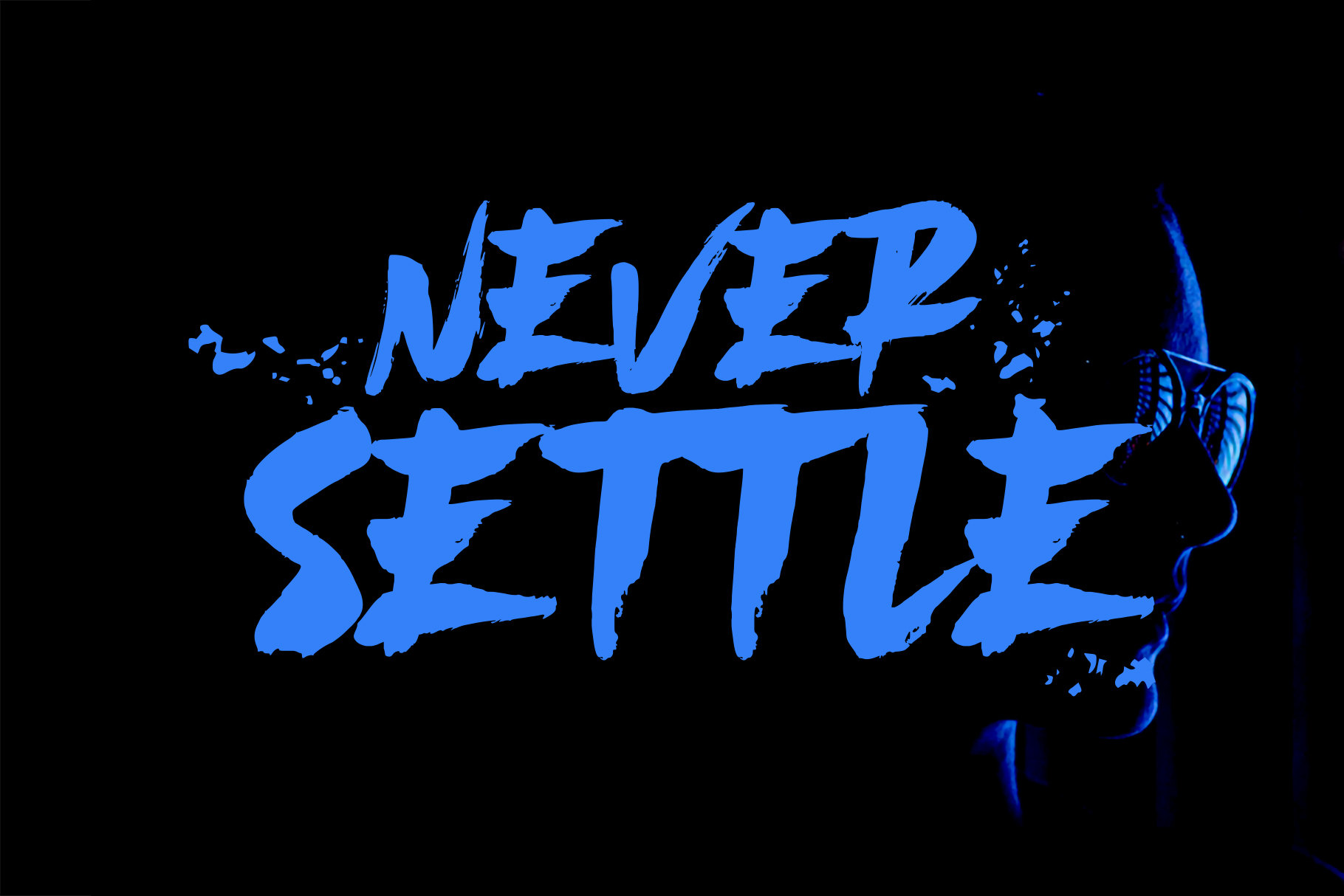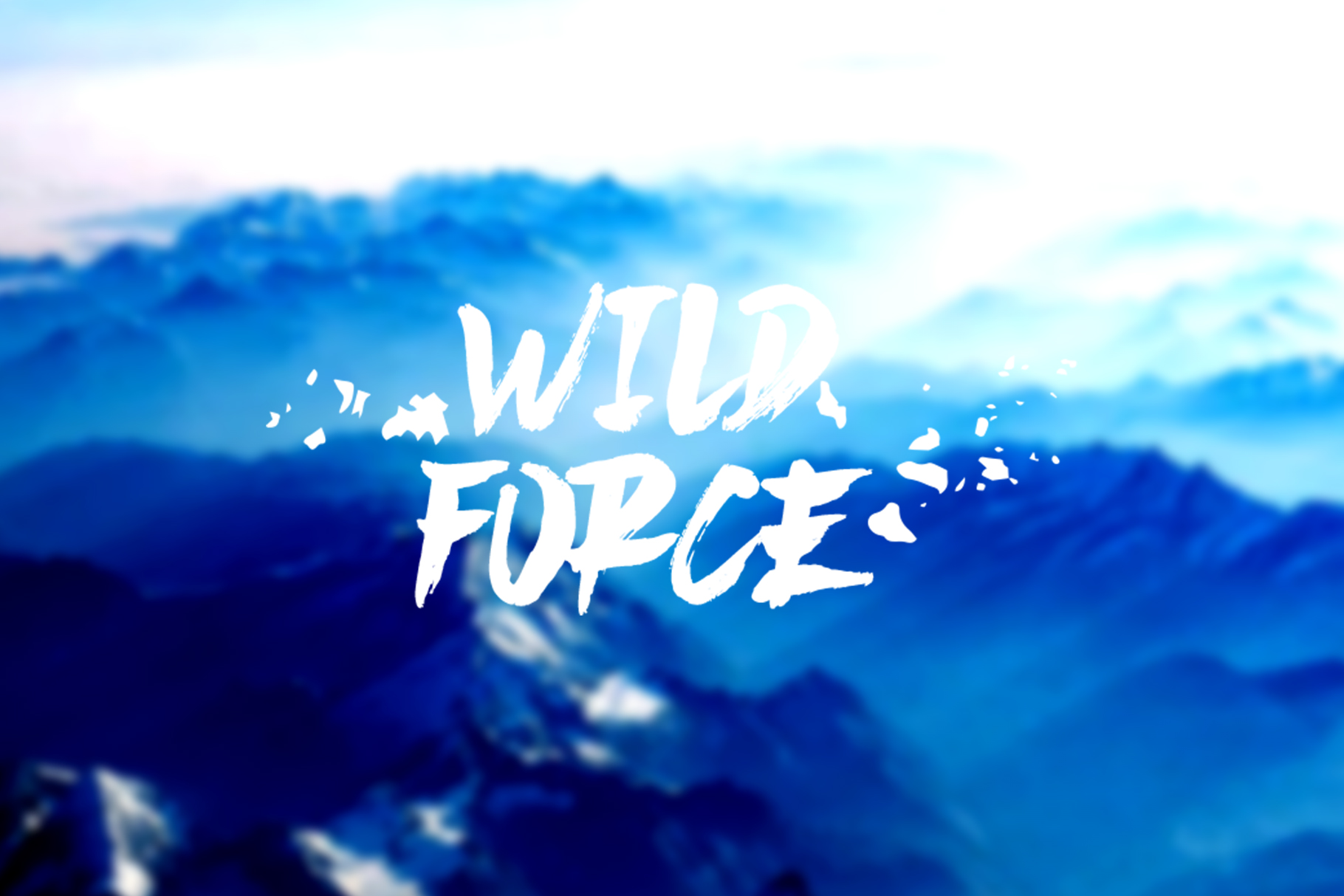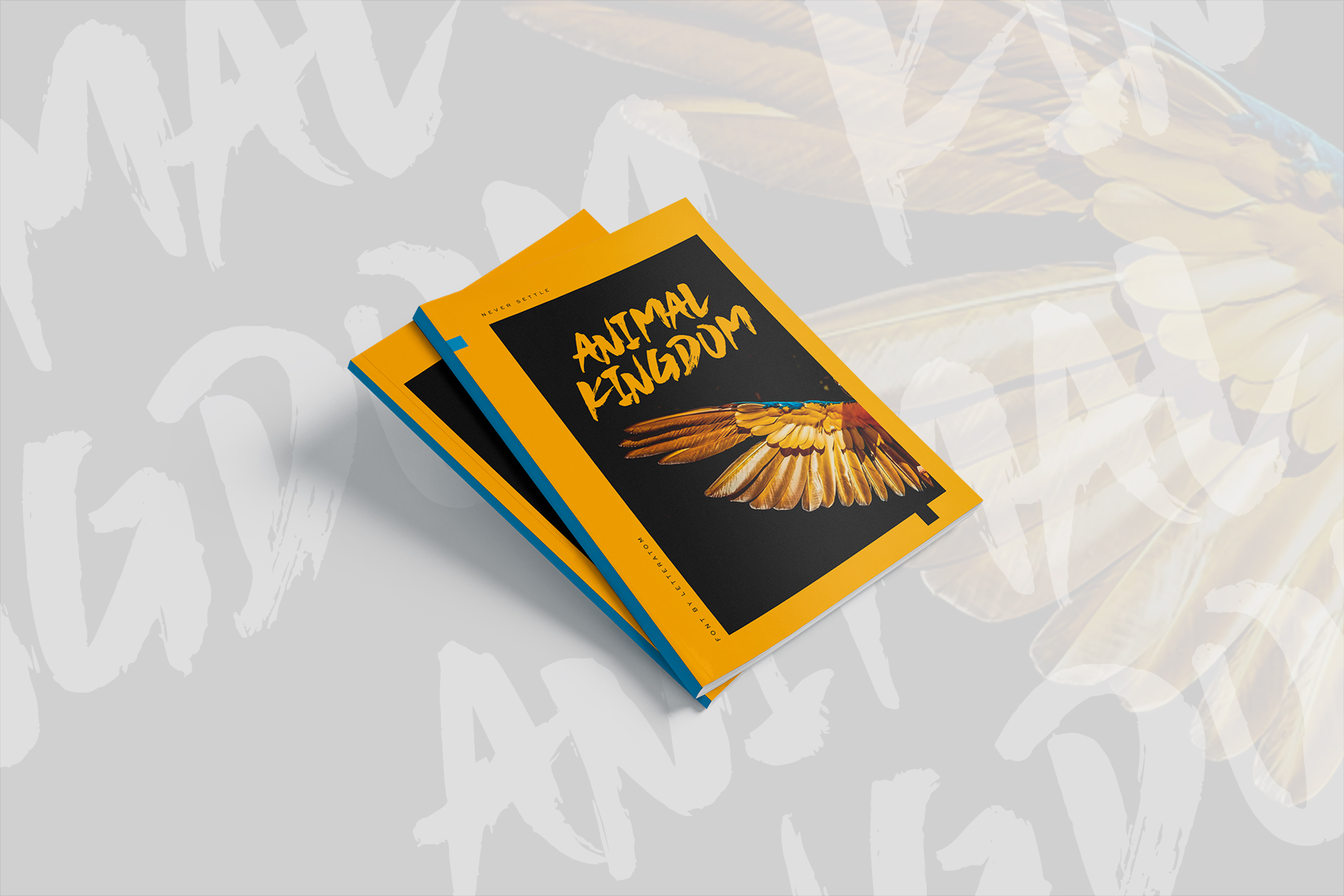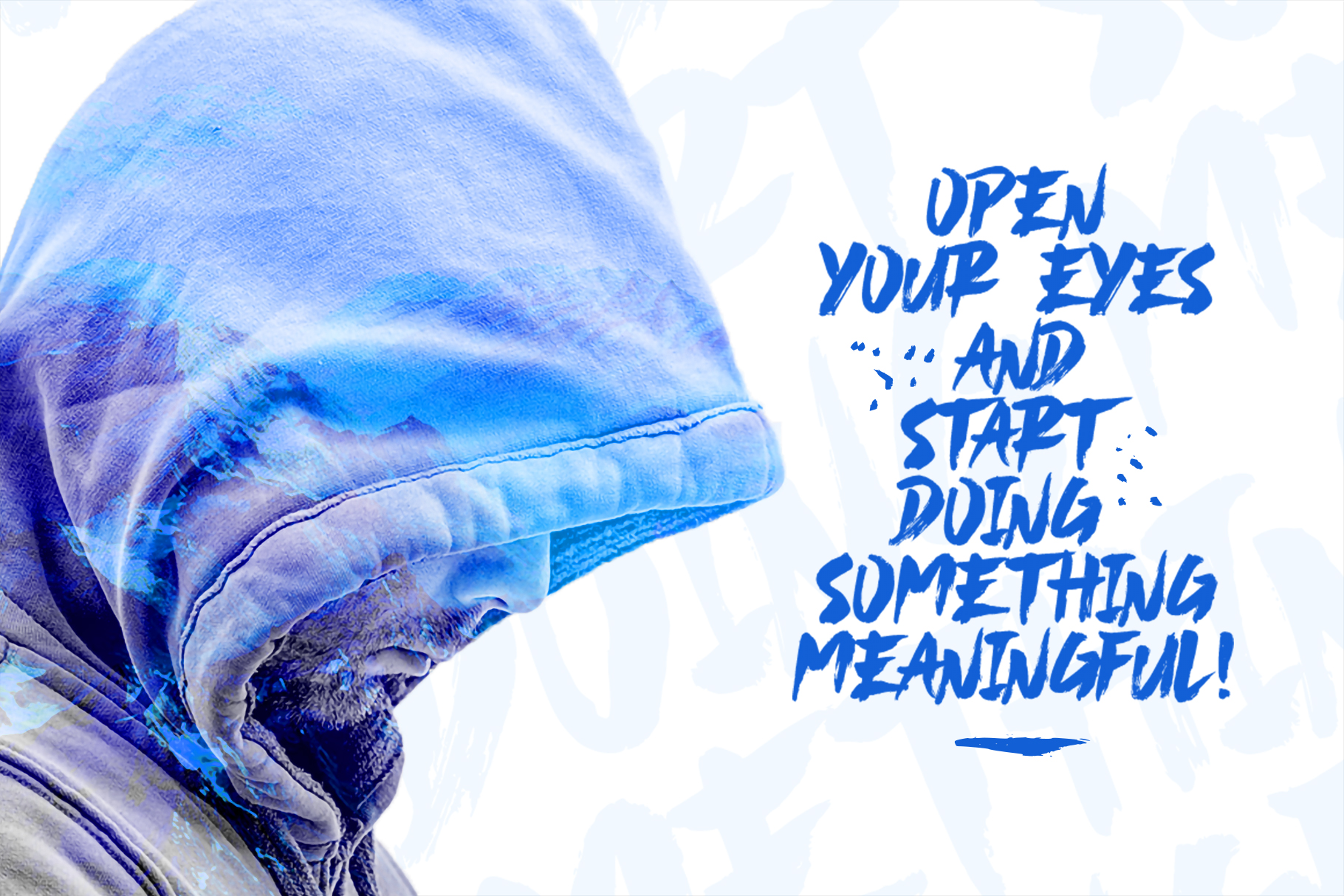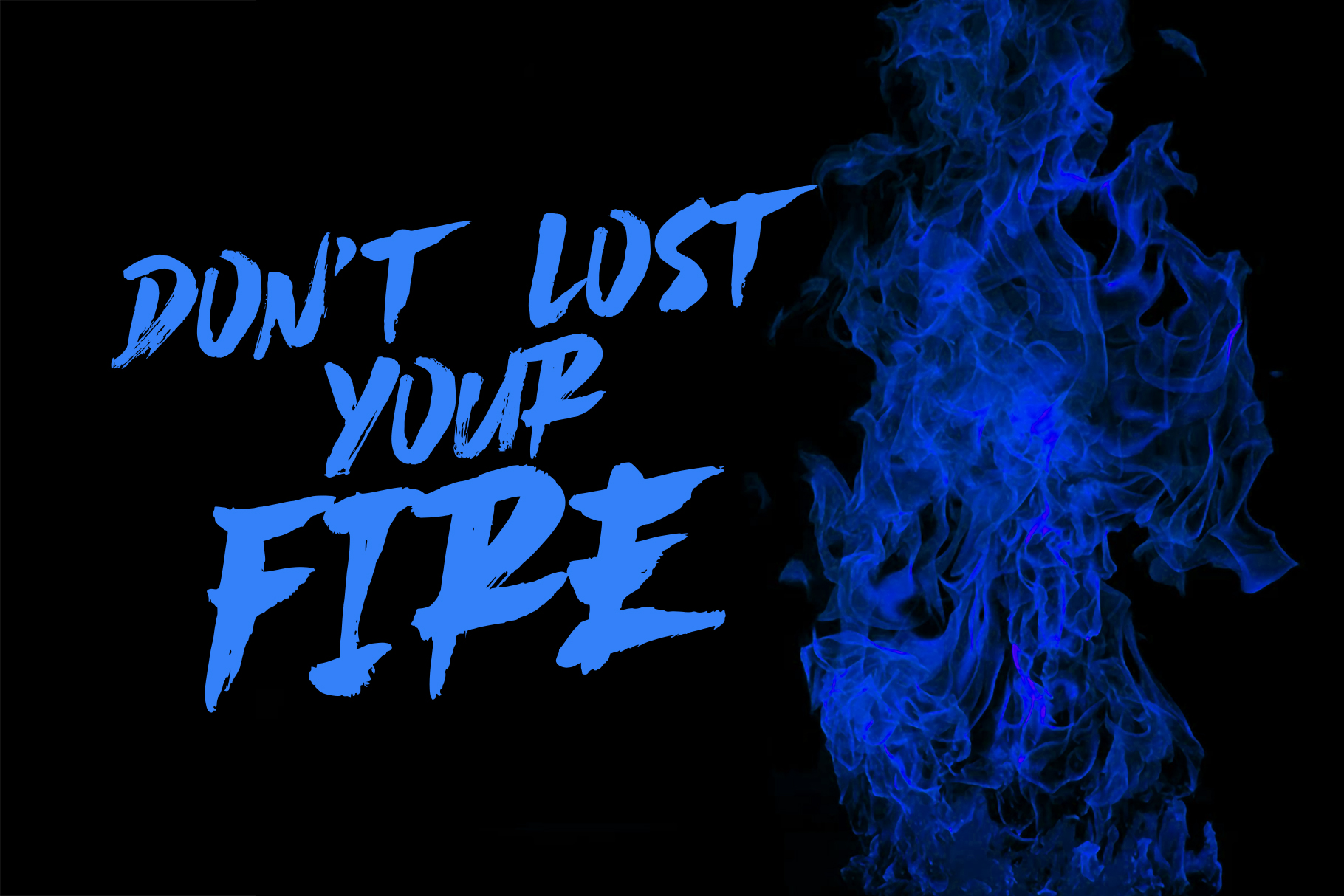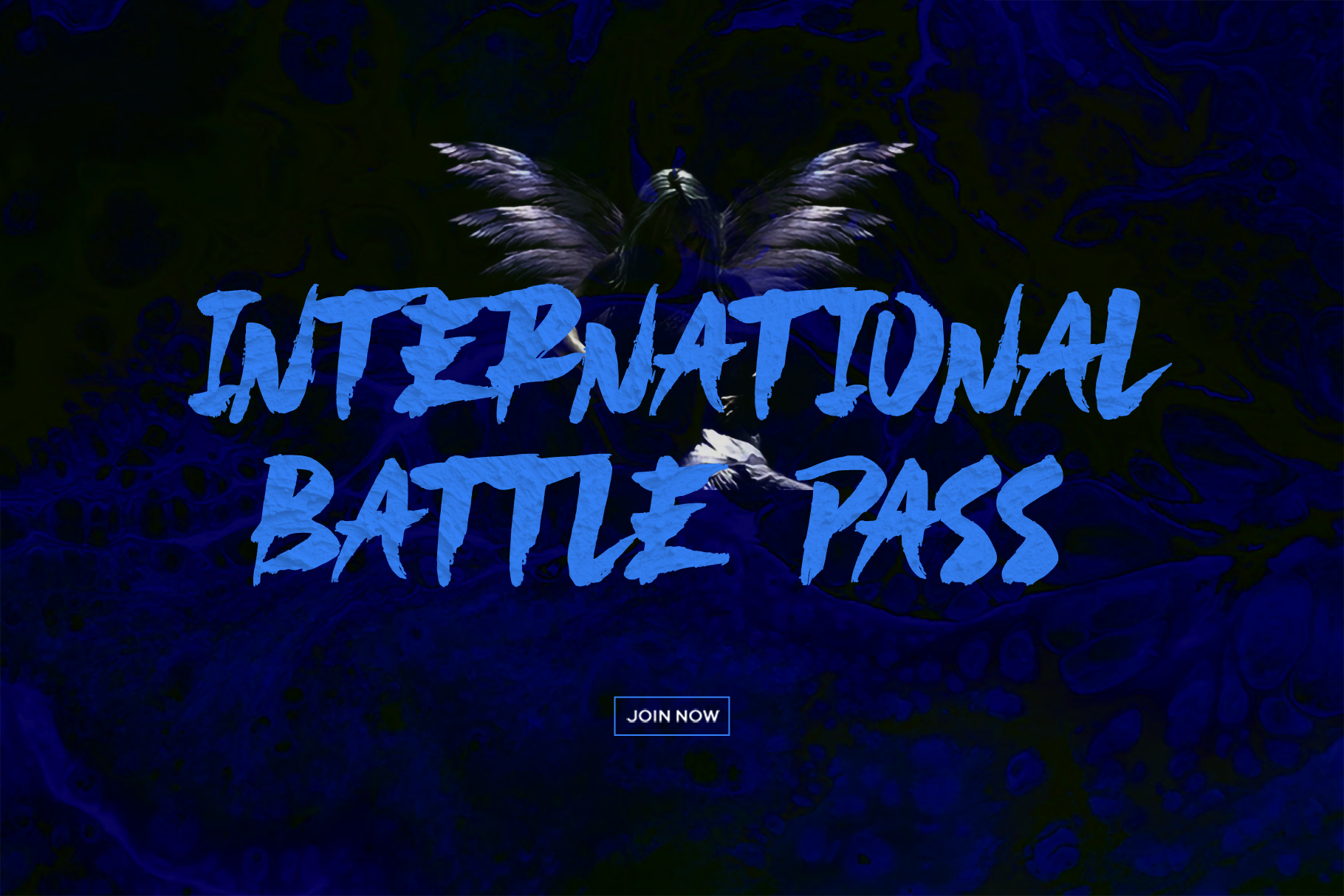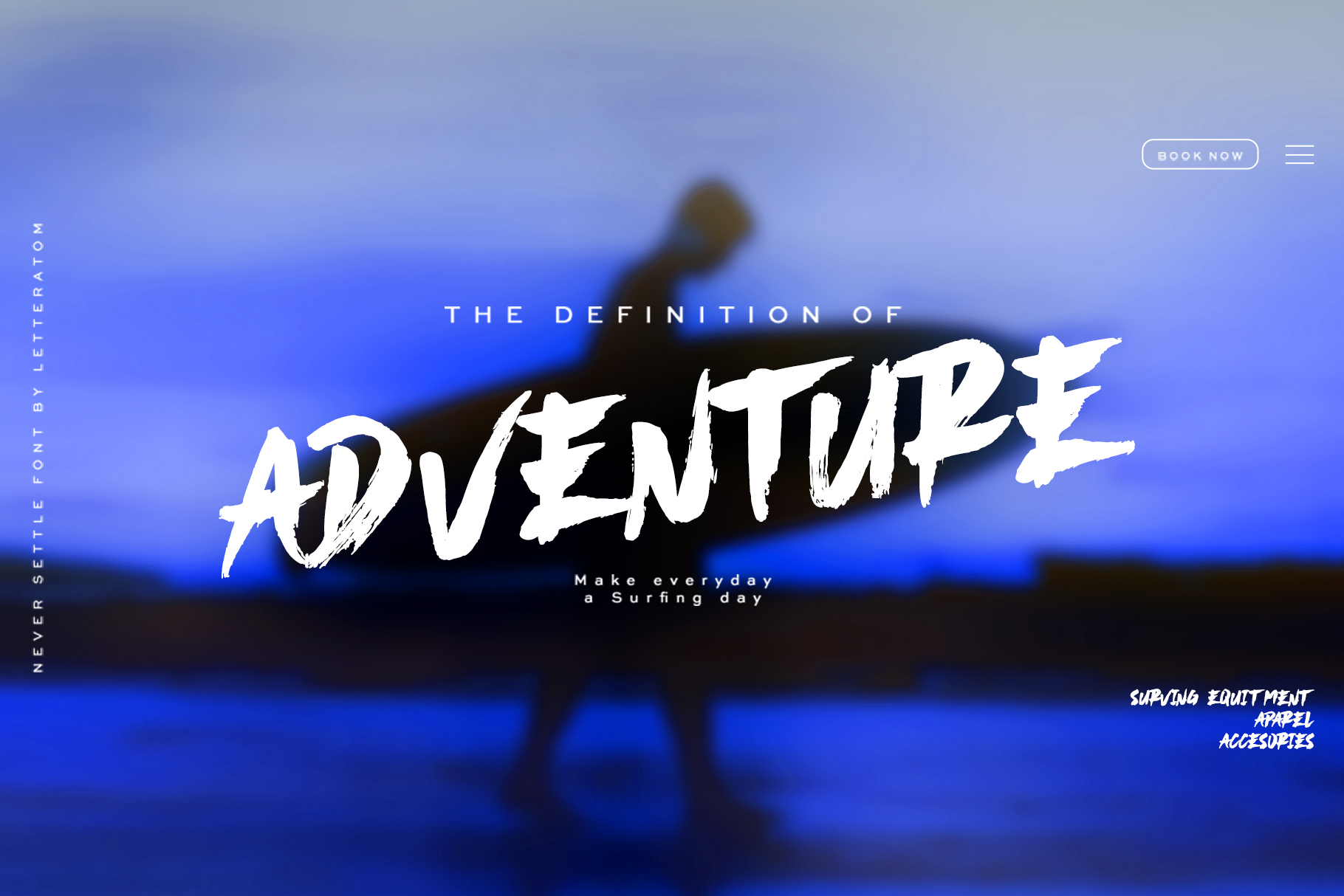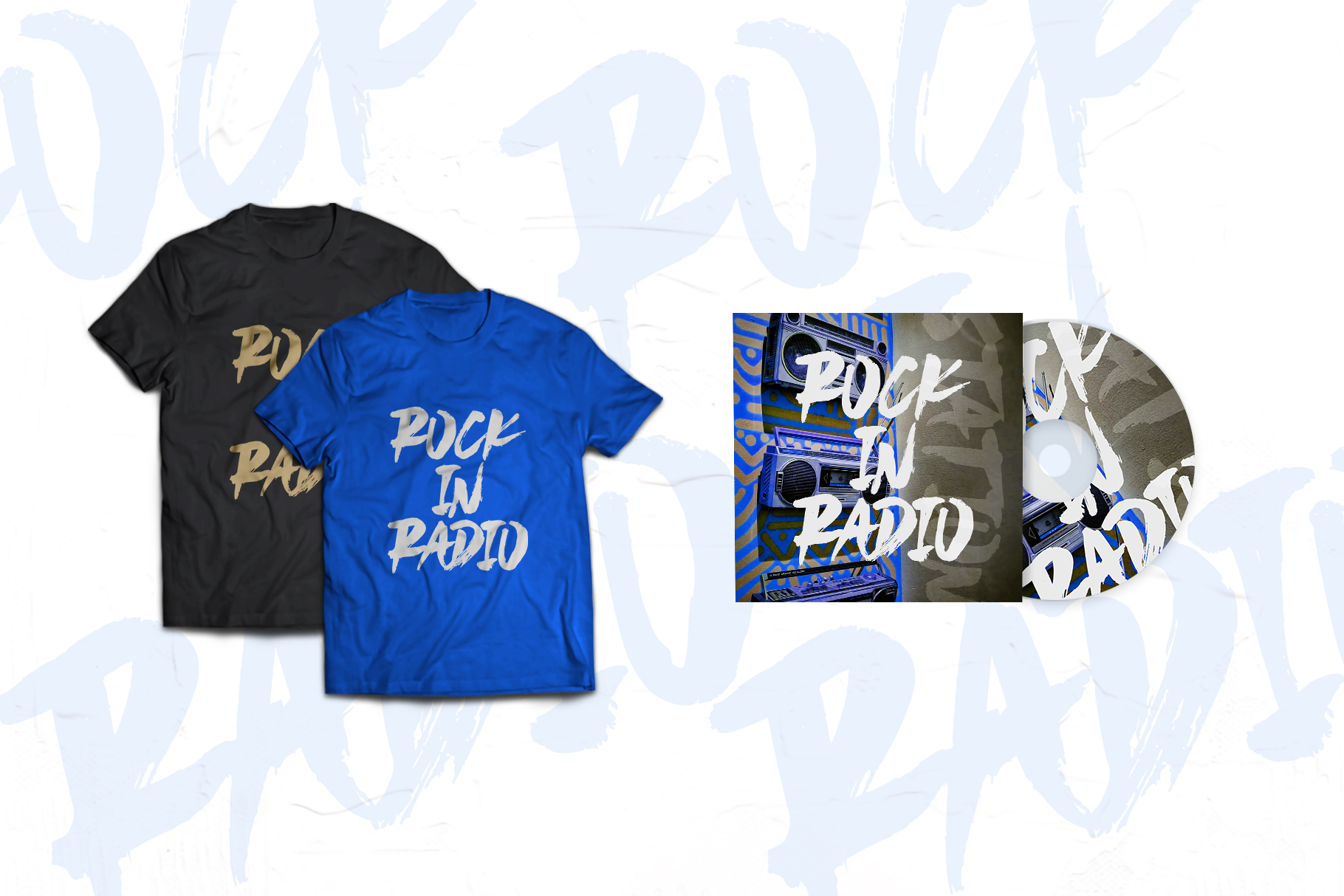
Never Settle is a bold and powerful handwritten font with a cool vibe. It will turn any design idea into a true standout! NEVER SETTLE to give the best to you!
Play with Never Settle and let your typography do the talking.